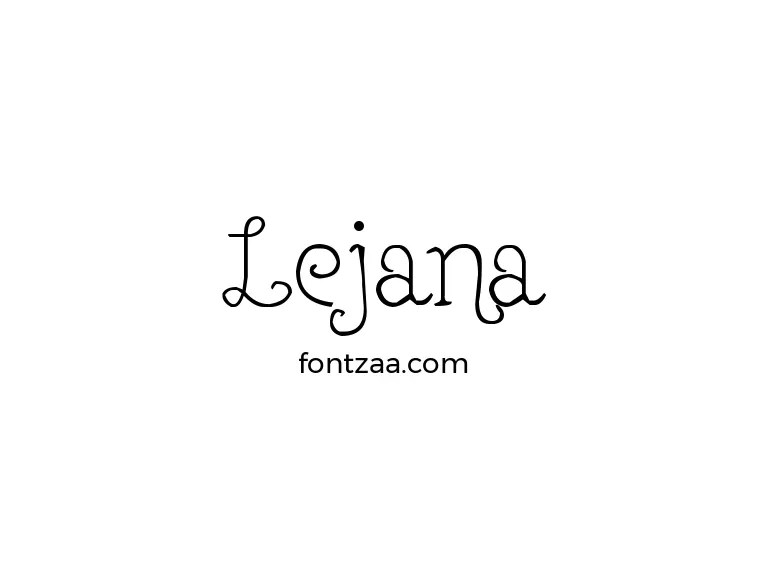
Lejana Font offers expressive lettering for designers looking for a elegant visual direction. Lejana Font brings a elegant personality to typography and gives designers a flexible starting point for creative display work. Testing several arrangements before choosing the final version can reveal which characteristics of the typeface work best. Different color combinations can make the same font feel subtle, energetic, premium or highly decorative. Its letter shapes become especially noticeable at larger sizes, where spacing and proportions can be explored more clearly. Designers may explore it across invitations, wedding stationery, signatures, quotes and elegant branding, depending on the tone and requirements of the project. A clean serif or sans serif companion can handle smaller text while this font remains focused on headlines and key messages. Print and digital layouts may require different sizing and spacing, so testing the actual output dimensions is recommended. The designer or publisher information available for this typeface is Juan Casco Fonts. The available licensing label is Free for personal use, but redistribution and commercial permissions should always be confirmed from the original source. Its final appearance will depend heavily on the surrounding colors, imagery, spacing and supporting typography.
For projects that need typography with a stronger identity, Lejana Font offers a elegant direction suited to headlines, branding and promotional layouts. Testing several arrangements before choosing the final version can reveal which characteristics of the typeface work best. Different color combinations can make the same font feel subtle, energetic, premium or highly decorative. The typeface can change considerably depending on tracking, scale, alignment, background and surrounding imagery. Designers may explore it across invitations, wedding stationery, signatures, quotes and elegant branding, depending on the tone and requirements of the project. Keeping secondary typography simple often allows the distinctive qualities of the main font to remain more visible. Previewing the final layout on both large and small screens helps identify spacing and readability problems early. Source metadata currently associates the font with Juan Casco Fonts. Current license information is shown as Free for personal use; checking the original documentation is recommended before client or commercial work. Testing the font with the actual project text can provide a much better impression than viewing isolated sample characters.
With its distinctive letterforms, Lejana Font can introduce a elegant character into digital and print projects. Using generous space around the lettering can help the details of the typeface remain visible instead of competing with other elements. The typeface can change considerably depending on tracking, scale, alignment, background and surrounding imagery. The font can work as the primary visual element in a minimal layout or as part of a more detailed composition. Possible applications include invitations, wedding stationery, signatures, quotes and elegant branding. Keeping secondary typography simple often allows the distinctive qualities of the main font to remain more visible. Print and digital layouts may require different sizing and spacing, so testing the actual output dimensions is recommended. The available source information lists Juan Casco Fonts as the designer or publisher. The available licensing label is Free for personal use, but redistribution and commercial permissions should always be confirmed from the original source. The most effective treatment will vary by project, so designers should compare several versions before finalizing the artwork.
Lejana Font Family
The Lejana Font Family can be explored in multiple compositions by adjusting typography size, spacing and surrounding design elements. The visual character of Lejana Font makes it an interesting choice for designers working on font-family exploration. Using generous space around the lettering can help the details of the typeface remain visible instead of competing with other elements. Testing several arrangements before choosing the final version can reveal which characteristics of the typeface work best. Different color combinations can make the same font feel subtle, energetic, premium or highly decorative. Its display-focused appearance makes it worth testing in invitations, wedding stationery, signatures, quotes and elegant branding. Previewing the final layout on both large and small screens helps identify spacing and readability problems early. A clean serif or sans serif companion can handle smaller text while this font remains focused on headlines and key messages. The available source information lists Juan Casco Fonts as the designer or publisher. The listed license is Free for personal use, although users should still review the original font package before commercial use. The most effective treatment will vary by project, so designers should compare several versions before finalizing the artwork.
- Lejana Font Regular
| Designer | Juan Casco Fonts |
Creative Uses for Lejana Font
The visual character of Lejana Font makes it an interesting choice for designers working on practical ways designers can use the typeface. Testing several arrangements before choosing the final version can reveal which characteristics of the typeface work best. Different color combinations can make the same font feel subtle, energetic, premium or highly decorative. Its letter shapes become especially noticeable at larger sizes, where spacing and proportions can be explored more clearly. Its display-focused appearance makes it worth testing in invitations, wedding stationery, signatures, quotes and elegant branding. Print and digital layouts may require different sizing and spacing, so testing the actual output dimensions is recommended. For layouts containing longer information, pairing it with a simpler supporting typeface can improve readability and hierarchy. The available source information lists Juan Casco Fonts as the designer or publisher. Current license information is shown as Free for personal use; checking the original documentation is recommended before client or commercial work. The most effective treatment will vary by project, so designers should compare several versions before finalizing the artwork.
Tips for Better Results With Lejana Font
Designers exploring a elegant typeface can use Lejana Font to add a more recognizable visual voice to spacing, contrast, scale and layout decisions. Testing several arrangements before choosing the final version can reveal which characteristics of the typeface work best. Its letter shapes become especially noticeable at larger sizes, where spacing and proportions can be explored more clearly. Using generous space around the lettering can help the details of the typeface remain visible instead of competing with other elements. The font can be considered for projects such as invitations, wedding stationery, signatures, quotes and elegant branding. Previewing the final layout on both large and small screens helps identify spacing and readability problems early. Print and digital layouts may require different sizing and spacing, so testing the actual output dimensions is recommended. The available source information lists Juan Casco Fonts as the designer or publisher. Current license information is shown as Free for personal use; checking the original documentation is recommended before client or commercial work. Testing the font with the actual project text can provide a much better impression than viewing isolated sample characters.
Using Lejana Font in Logos
Lejana Font stands out through its individual shapes and can become an important visual element in logos, wordmarks and visual identity systems. Using generous space around the lettering can help the details of the typeface remain visible instead of competing with other elements. Its letter shapes become especially noticeable at larger sizes, where spacing and proportions can be explored more clearly. Different color combinations can make the same font feel subtle, energetic, premium or highly decorative. Possible applications include invitations, wedding stationery, signatures, quotes and elegant branding. A clean serif or sans serif companion can handle smaller text while this font remains focused on headlines and key messages. Keeping secondary typography simple often allows the distinctive qualities of the main font to remain more visible. The available source information lists Juan Casco Fonts as the designer or publisher. The available licensing label is Free for personal use, but redistribution and commercial permissions should always be confirmed from the original source. Its final appearance will depend heavily on the surrounding colors, imagery, spacing and supporting typography.
Creative Projects With Lejana Font
With its distinctive letterforms, Lejana Font can introduce a elegant character into different creative applications for the font. Using generous space around the lettering can help the details of the typeface remain visible instead of competing with other elements. The typeface can change considerably depending on tracking, scale, alignment, background and surrounding imagery. Different color combinations can make the same font feel subtle, energetic, premium or highly decorative. Designers may explore it across invitations, wedding stationery, signatures, quotes and elegant branding, depending on the tone and requirements of the project. Previewing the final layout on both large and small screens helps identify spacing and readability problems early. Keeping secondary typography simple often allows the distinctive qualities of the main font to remain more visible. According to the available font information, the typeface is associated with Juan Casco Fonts. The listed license is Free for personal use, although users should still review the original font package before commercial use. A few quick layout variations can help determine where the font creates the strongest visual result.
Choosing Supporting Fonts for Lejana Font
The visual character of Lejana Font makes it an interesting choice for designers working on combining the display font with supporting typefaces. Different color combinations can make the same font feel subtle, energetic, premium or highly decorative. Its letter shapes become especially noticeable at larger sizes, where spacing and proportions can be explored more clearly. Using generous space around the lettering can help the details of the typeface remain visible instead of competing with other elements. Creative uses may range from invitations, wedding stationery, signatures, quotes and elegant branding, with different results depending on scale and layout. Keeping secondary typography simple often allows the distinctive qualities of the main font to remain more visible. A clean serif or sans serif companion can handle smaller text while this font remains focused on headlines and key messages. The designer or publisher information available for this typeface is Juan Casco Fonts. The listed license is Free for personal use, although users should still review the original font package before commercial use. A few quick layout variations can help determine where the font creates the strongest visual result.
Lejana Font File Formats and Compatibility
Designers exploring a elegant typeface can use Lejana Font to add a more recognizable visual voice to TTF and OTF compatibility with design software. Testing several arrangements before choosing the final version can reveal which characteristics of the typeface work best. Different color combinations can make the same font feel subtle, energetic, premium or highly decorative. Its letter shapes become especially noticeable at larger sizes, where spacing and proportions can be explored more clearly. Its display-focused appearance makes it worth testing in invitations, wedding stationery, signatures, quotes and elegant branding. Print and digital layouts may require different sizing and spacing, so testing the actual output dimensions is recommended. Designers should evaluate the typeface inside the real project because a standalone preview cannot show every possible visual combination. The available source information lists Juan Casco Fonts as the designer or publisher. Current license information is shown as Free for personal use; checking the original documentation is recommended before client or commercial work. Its final appearance will depend heavily on the surrounding colors, imagery, spacing and supporting typography. Most modern creative software supports common TTF and OTF files after they are installed at the operating-system level.
Find More Fonts Like Lejana Font
Lejana Font brings a elegant personality to typography and gives designers a flexible starting point for discovering alternatives and related typography. Using generous space around the lettering can help the details of the typeface remain visible instead of competing with other elements. Different color combinations can make the same font feel subtle, energetic, premium or highly decorative. The typeface can change considerably depending on tracking, scale, alignment, background and surrounding imagery. Possible applications include invitations, wedding stationery, signatures, quotes and elegant branding. Print and digital layouts may require different sizing and spacing, so testing the actual output dimensions is recommended. Previewing the final layout on both large and small screens helps identify spacing and readability problems early. The available source information lists Juan Casco Fonts as the designer or publisher. Current license information is shown as Free for personal use; checking the original documentation is recommended before client or commercial work. The most effective treatment will vary by project, so designers should compare several versions before finalizing the artwork. Explore more typography on Fontzaa or browse the 100% Free Fonts collection.
What Makes Lejana Font Stand Out
Lejana Font brings a elegant personality to typography and gives designers a flexible starting point for the visual characteristics and design personality of the typeface. Its letter shapes become especially noticeable at larger sizes, where spacing and proportions can be explored more clearly. Testing several arrangements before choosing the final version can reveal which characteristics of the typeface work best. Different color combinations can make the same font feel subtle, energetic, premium or highly decorative. The font can be considered for projects such as invitations, wedding stationery, signatures, quotes and elegant branding. A clean serif or sans serif companion can handle smaller text while this font remains focused on headlines and key messages. Designers should evaluate the typeface inside the real project because a standalone preview cannot show every possible visual combination. According to the available font information, the typeface is associated with Juan Casco Fonts. The listed license is Free for personal use, although users should still review the original font package before commercial use. Testing the font with the actual project text can provide a much better impression than viewing isolated sample characters.
Installing Lejana Font on Your Computer
Lejana Font brings a elegant personality to typography and gives designers a flexible starting point for installing and activating the font on desktop systems. Its letter shapes become especially noticeable at larger sizes, where spacing and proportions can be explored more clearly. The font can work as the primary visual element in a minimal layout or as part of a more detailed composition. Different color combinations can make the same font feel subtle, energetic, premium or highly decorative. Creative uses may range from invitations, wedding stationery, signatures, quotes and elegant branding, with different results depending on scale and layout. Print and digital layouts may require different sizing and spacing, so testing the actual output dimensions is recommended. For layouts containing longer information, pairing it with a simpler supporting typeface can improve readability and hierarchy. The designer or publisher information available for this typeface is Juan Casco Fonts. License details are currently listed as Free for personal use. Users should verify the supplied documentation before using the font in products or paid projects. The most effective treatment will vary by project, so designers should compare several versions before finalizing the artwork. After installation, restart any design software that was already open so the new typeface appears in its font selector.
Lejana Font in Digital and Poster Design
Designers exploring a elegant typeface can use Lejana Font to add a more recognizable visual voice to posters, campaigns, thumbnails and promotional content. The typeface can change considerably depending on tracking, scale, alignment, background and surrounding imagery. Its letter shapes become especially noticeable at larger sizes, where spacing and proportions can be explored more clearly. Different color combinations can make the same font feel subtle, energetic, premium or highly decorative. Its display-focused appearance makes it worth testing in invitations, wedding stationery, signatures, quotes and elegant branding. For layouts containing longer information, pairing it with a simpler supporting typeface can improve readability and hierarchy. Previewing the final layout on both large and small screens helps identify spacing and readability problems early. The designer or publisher information available for this typeface is Juan Casco Fonts. Current license information is shown as Free for personal use; checking the original documentation is recommended before client or commercial work. Testing the font with the actual project text can provide a much better impression than viewing isolated sample characters.